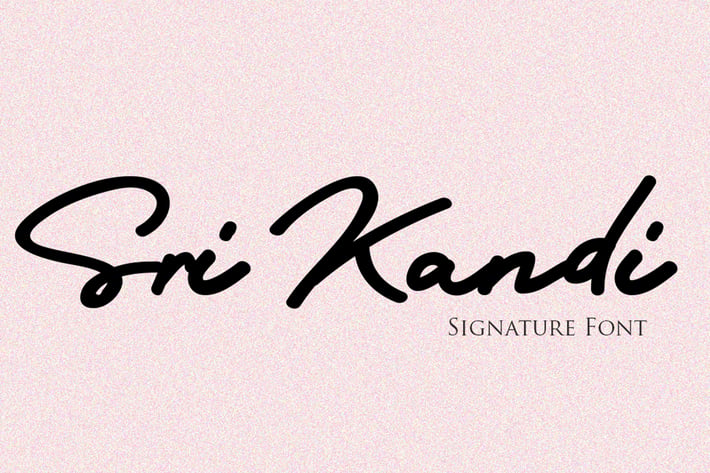
Sri Kandi Font
Sri Kandi is a stylish and effortlessly cool handwritten font with a contemporary twist. It will add a unique spin on any design project!